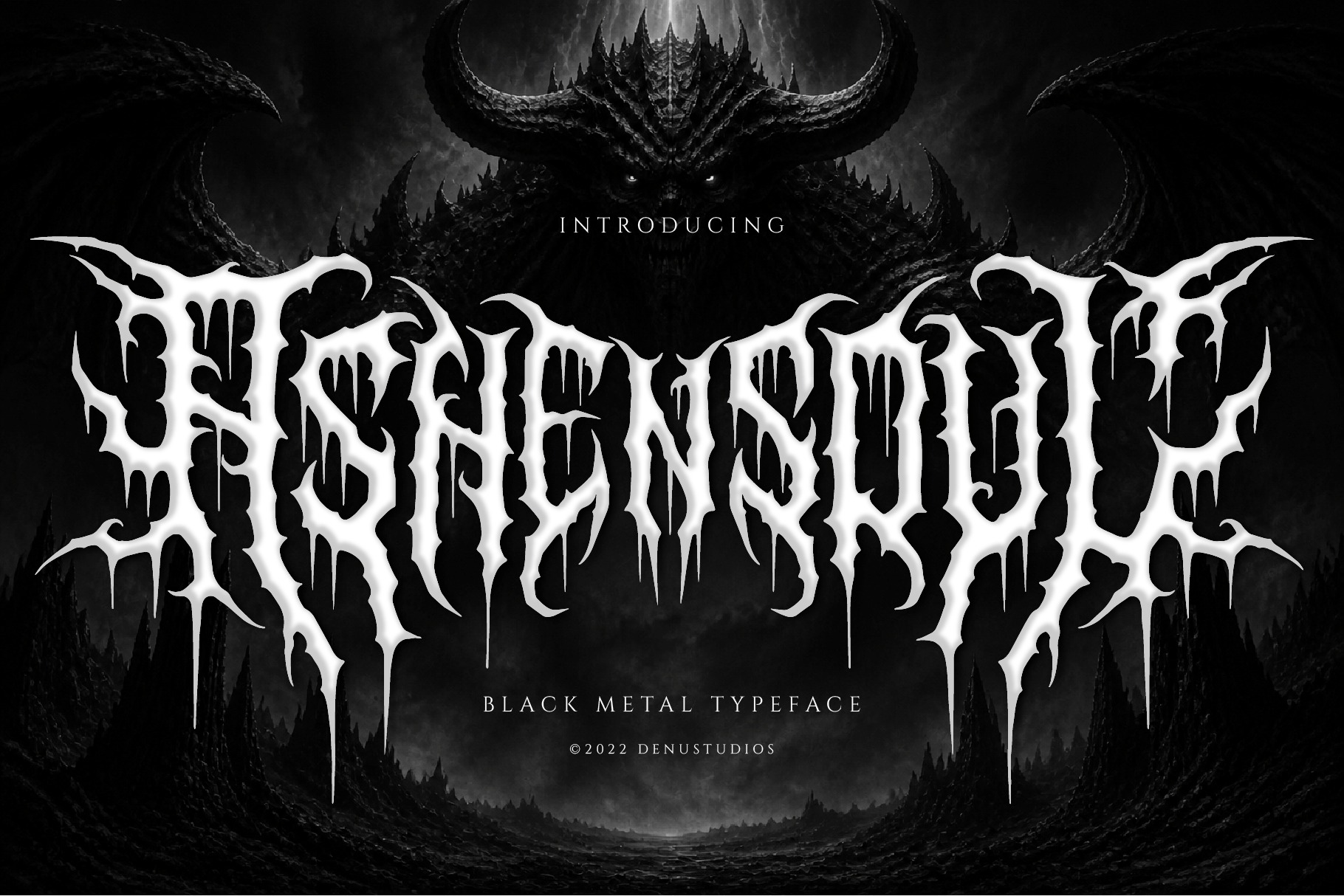
Ashensoul – Black Metal Font
Ashensoul – Black Metal Font is a premium-quality font developed to enhance your work with a polished, modern, and visually elevated look.Ashensoul | Black Metal Font, from Denustudios, suitable for any projects such as: logos, branding projects, homeware designs, product packaging, mugs, quotes, posters, shopping bags, t-shirts, book covers, name card, invitation cards, greeting cards, label, photography, watermark, special events, and all your other lovely projects that need a Black Metal taste.
Standard glyphs
Alternate and Ligature